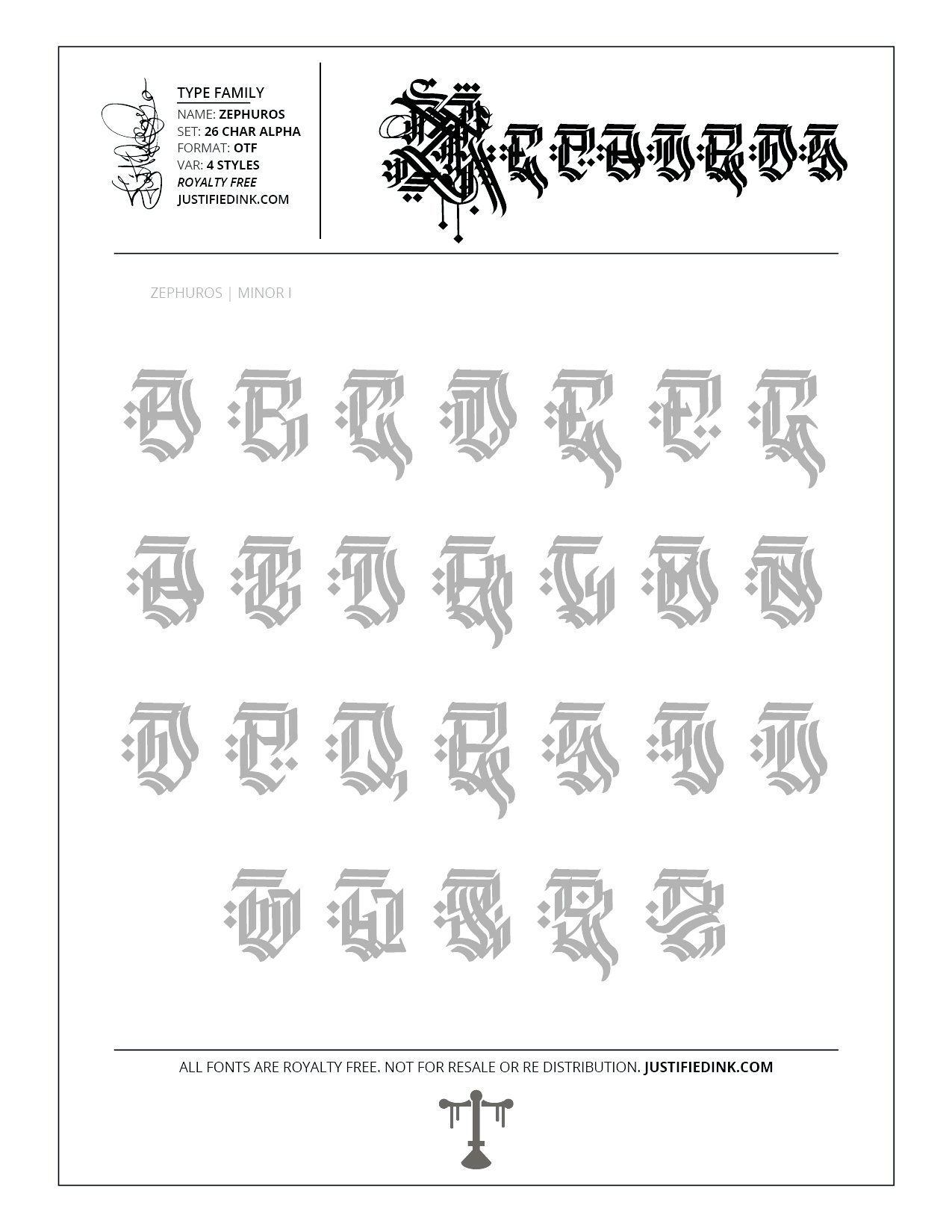
Zephuros (4 styles) - Custom Font by Justified Ink
NAME: Zephuros
Elevated above all, Zephuros has the final iteration of the Major/Minor power-combo. Featuring 1 over the top Major and 3 distinct Minor font styles, this is the end all blackletter heavyweight champion.
This font is part of the collection by Justified Ink, called Blackletter II. After 15+ years creating, I began to focus on building personal libraries of my work. The Blackletter II Collection was created through writing page after page, and countless hours over a 2 year span of daily practice. Each font from this collection has been hand drawn, manually vectored, and custom set as a type-able font. It comes in a full set of 26 char alpha. Each font family has variations in styles and/or non-alpha chars.